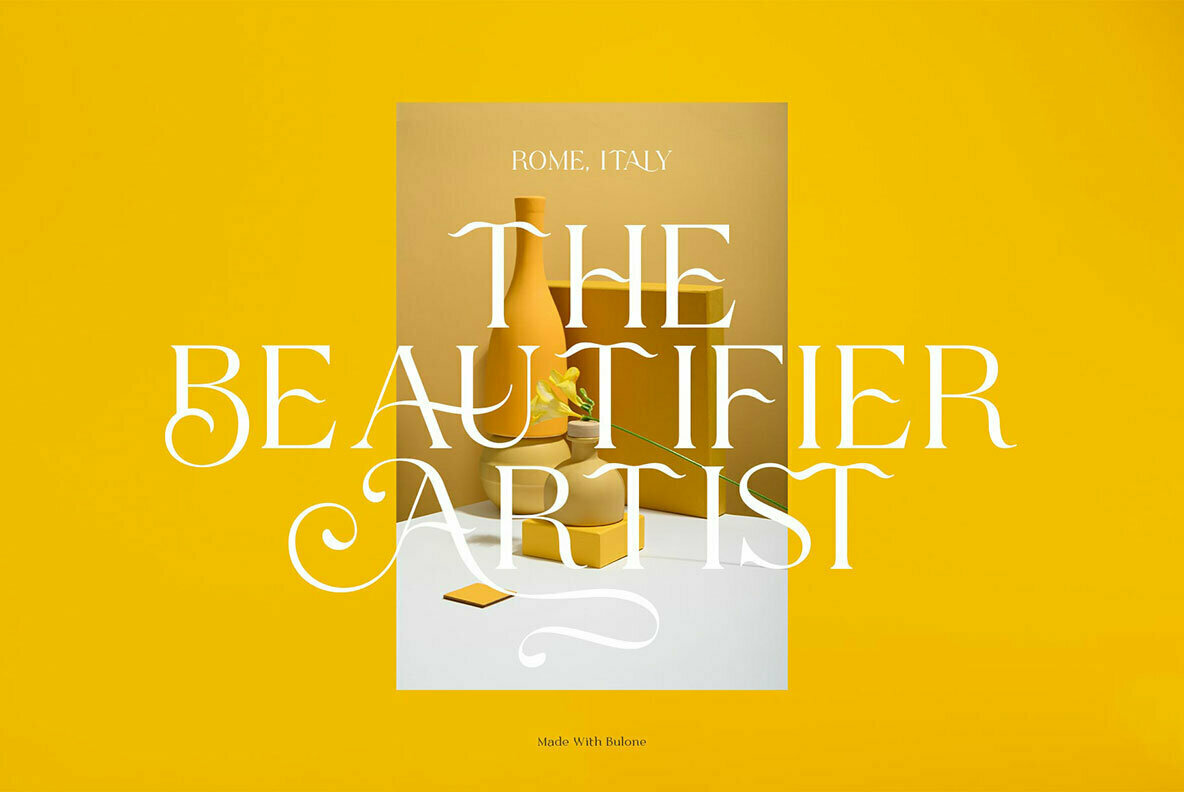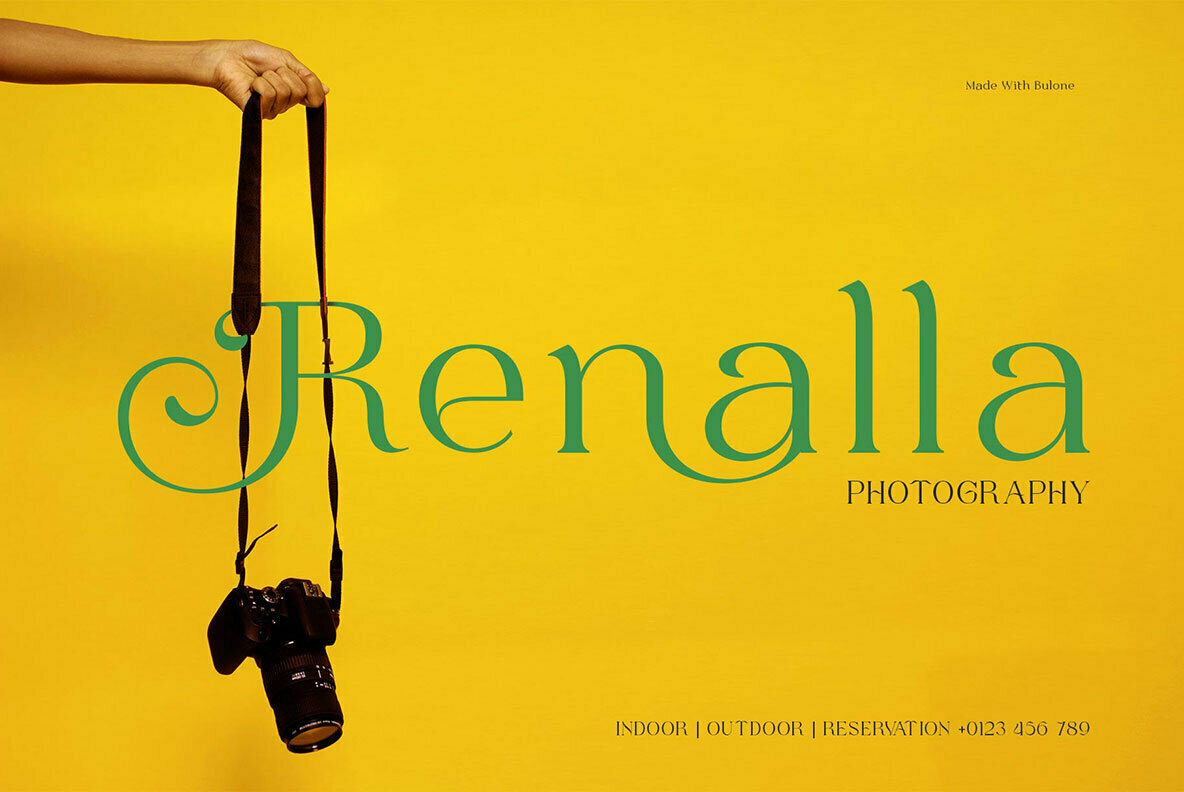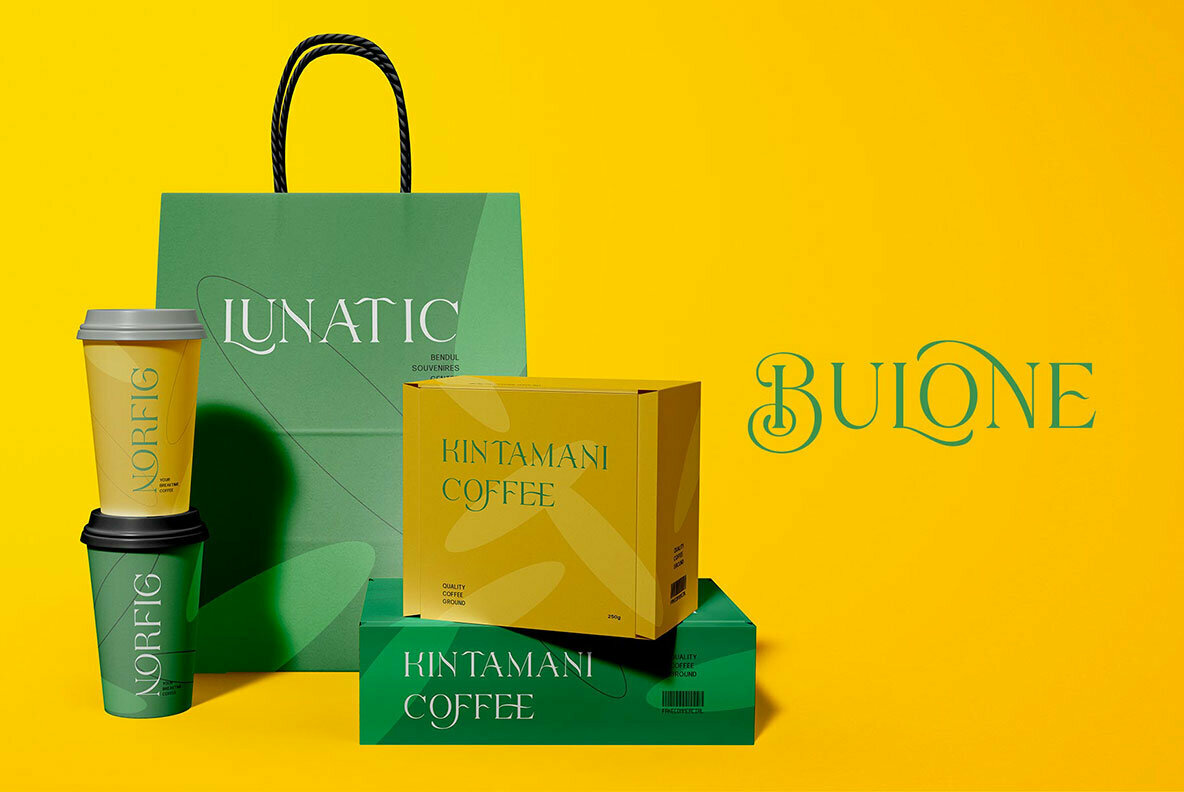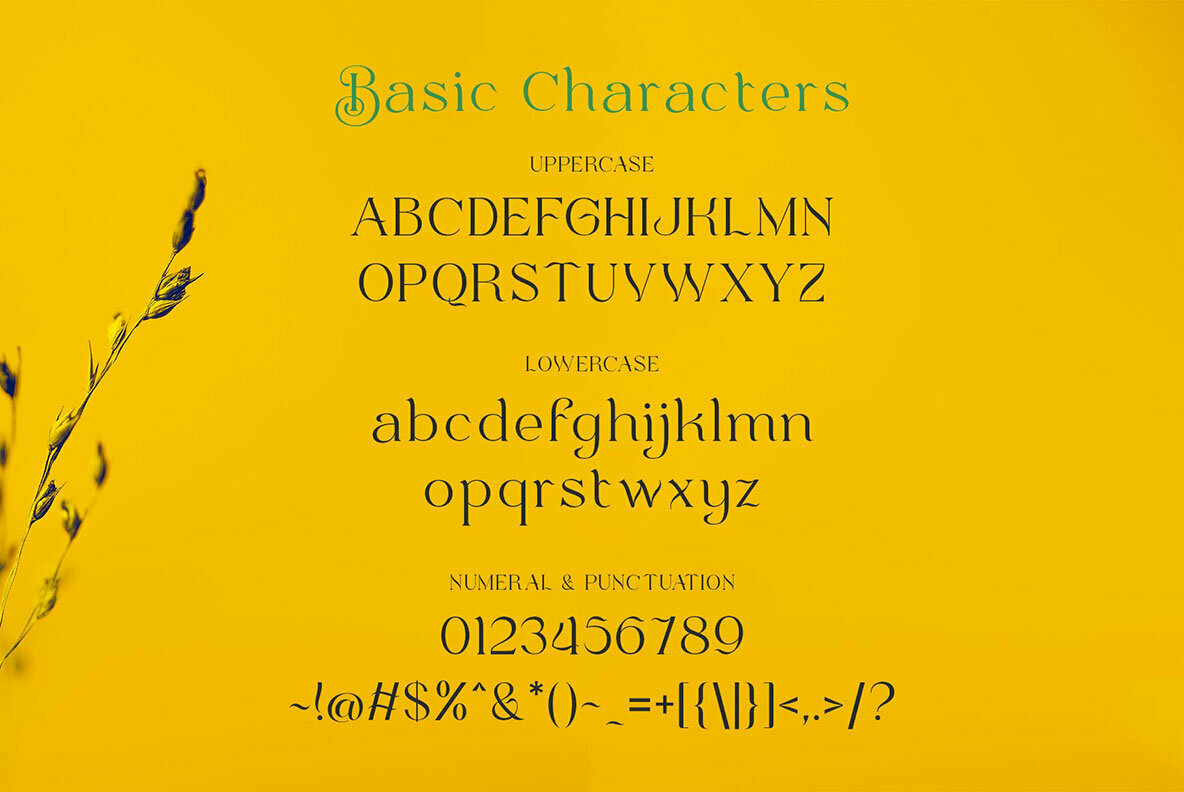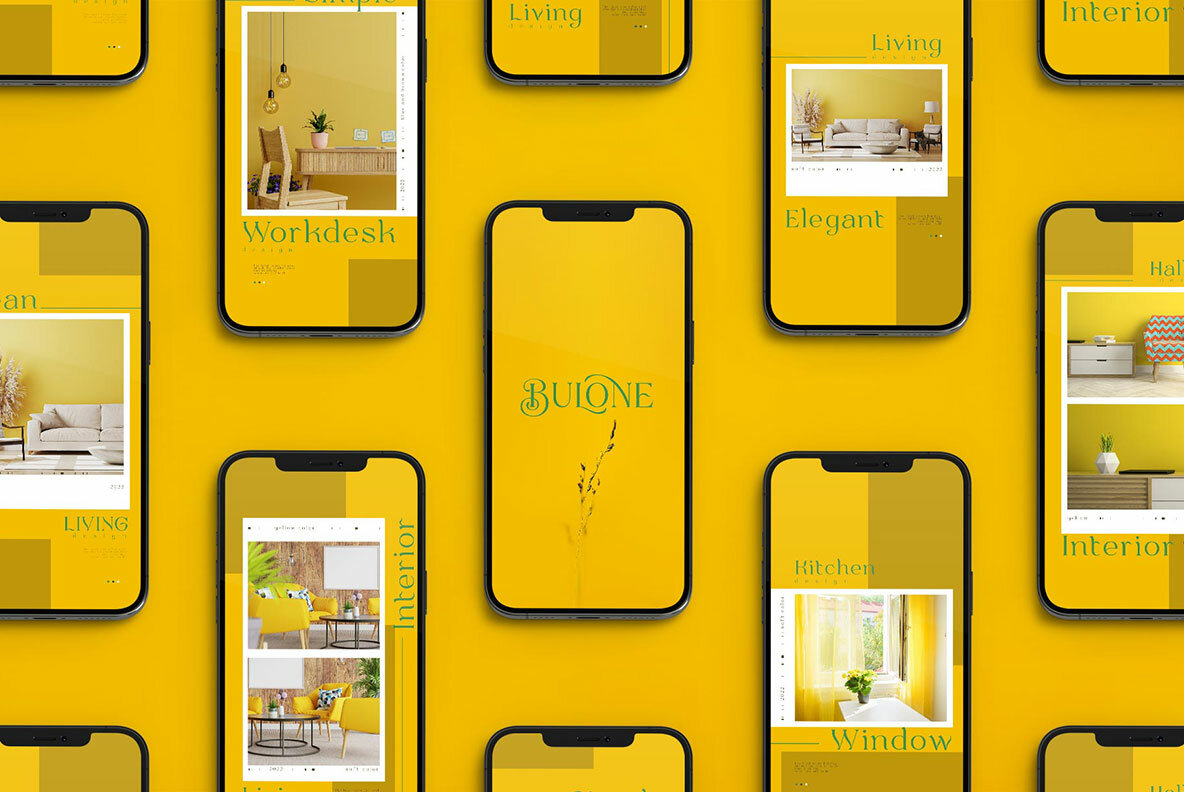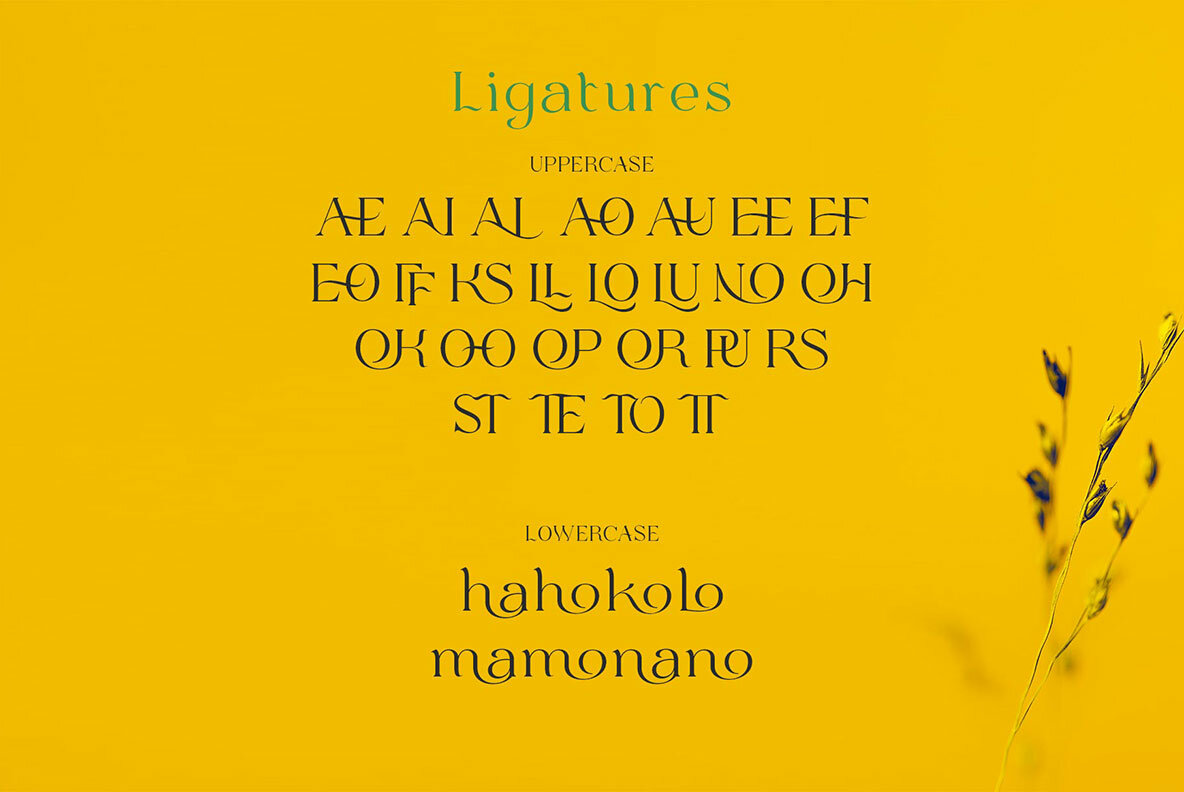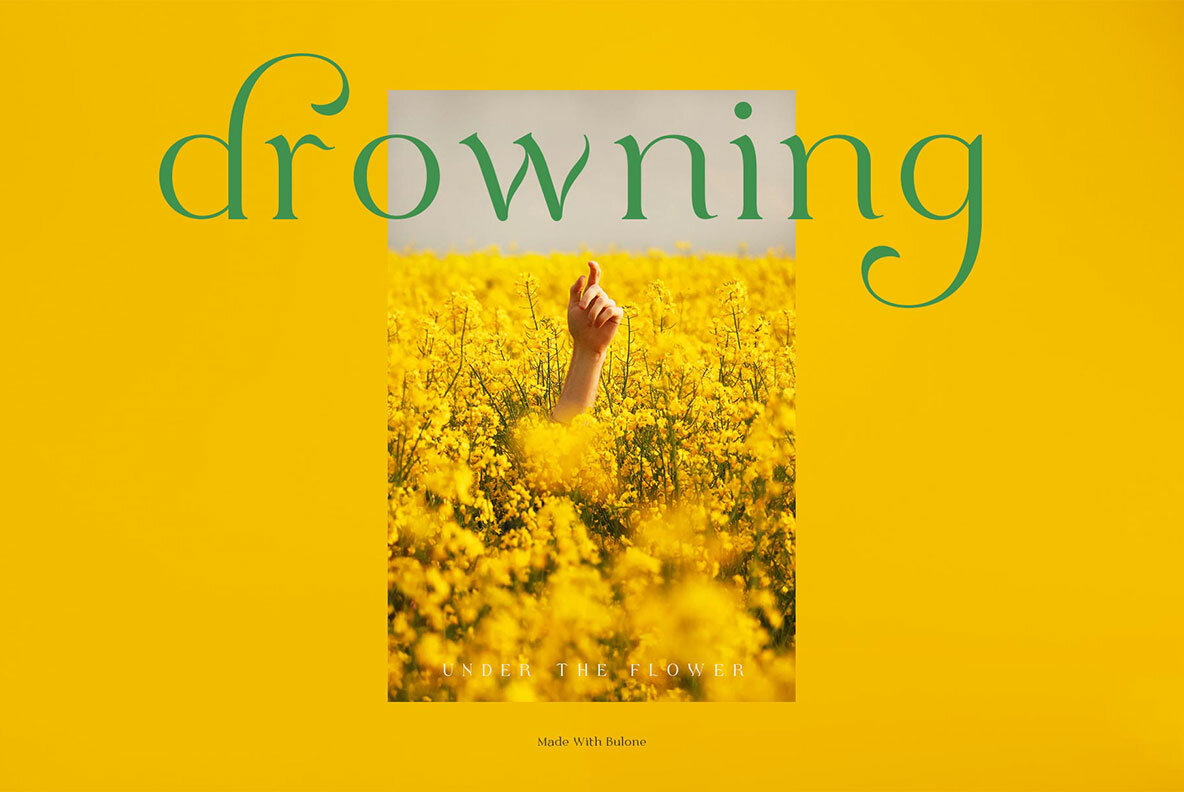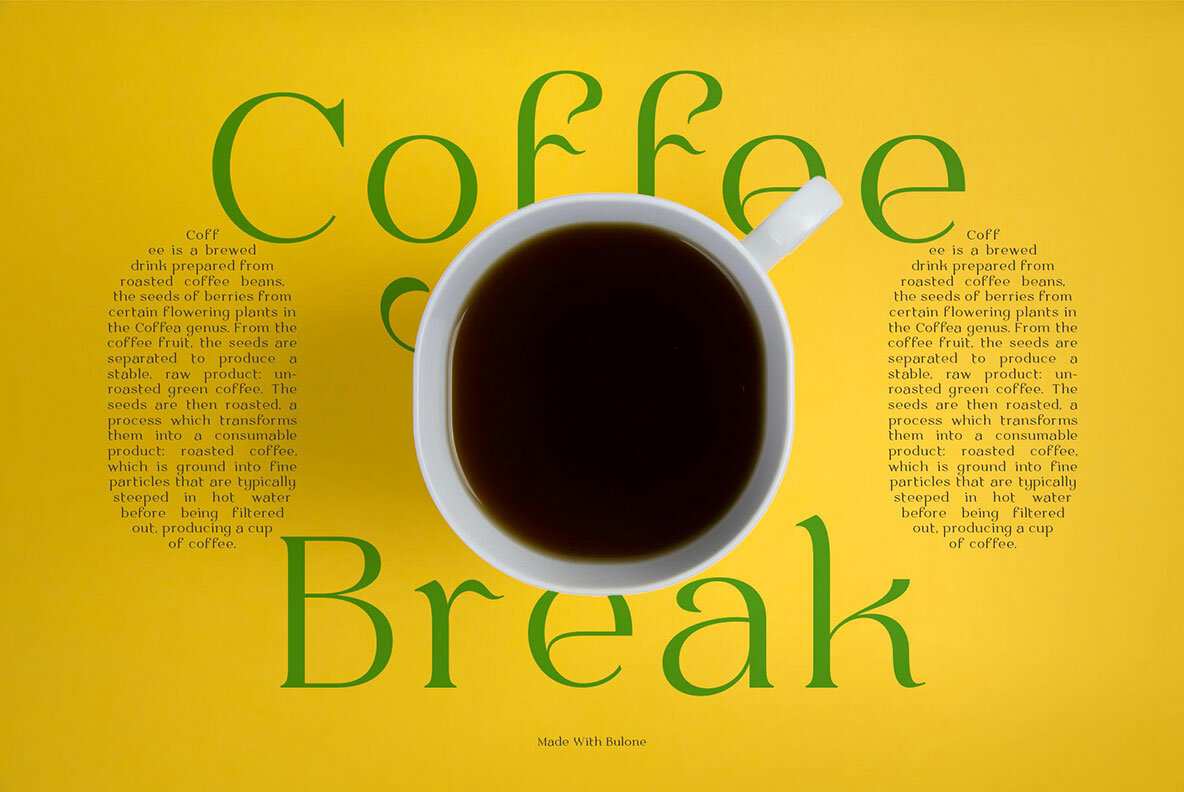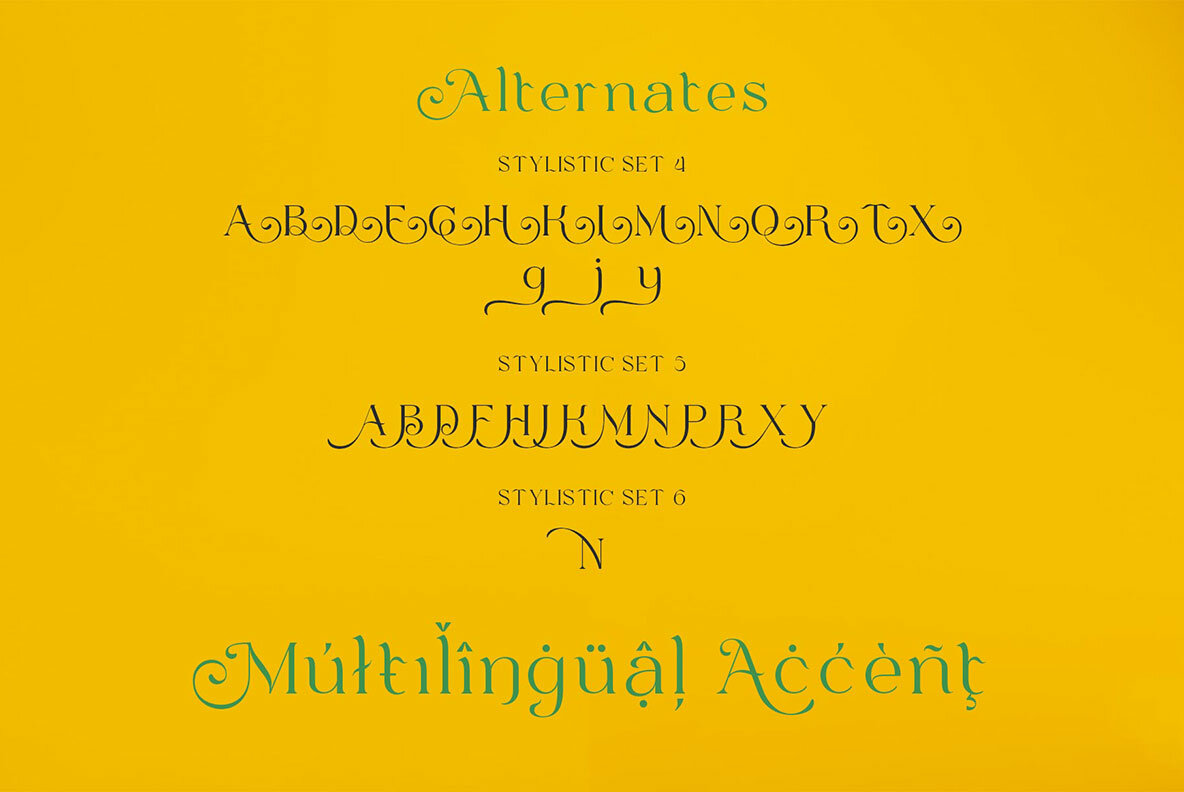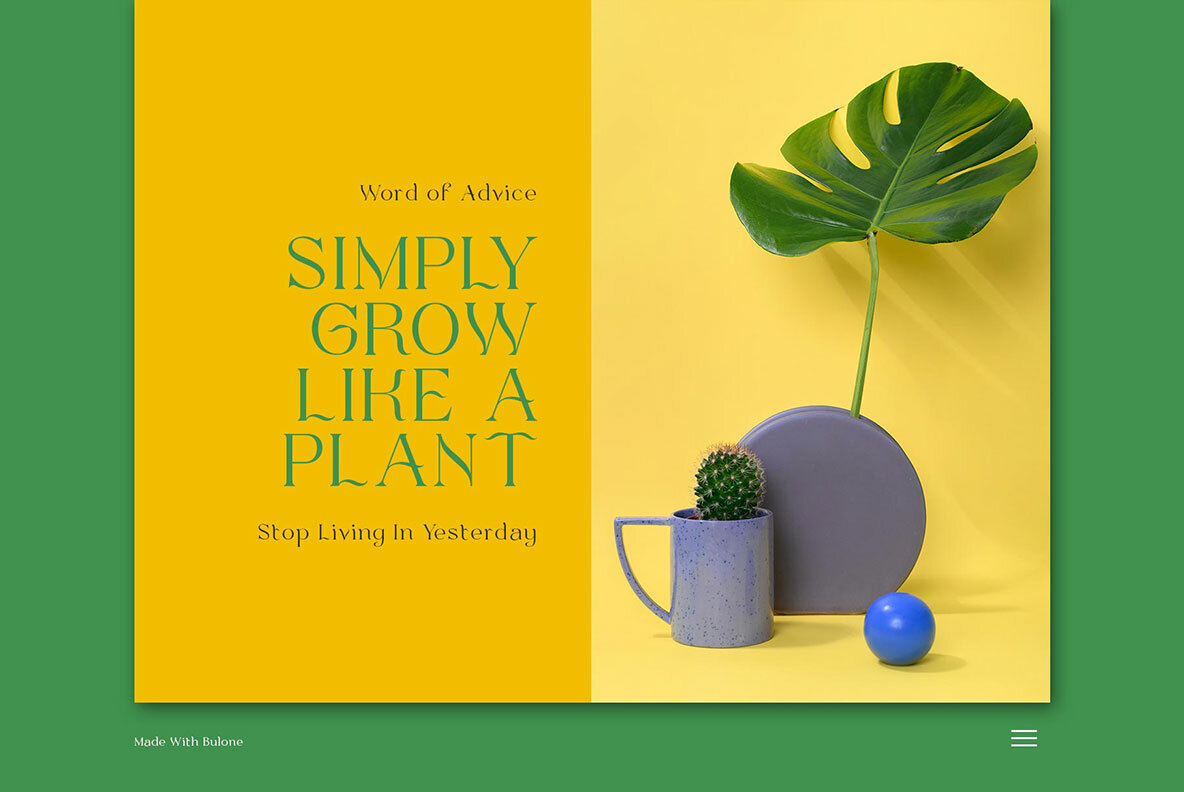
Bulone Font
Bulone Regular
With its elegant serif style, the Bulone typeface is perfect for any design that needs an extra touch of class. The smooth curves and bulbous shapes will make your work stand out among others in this category! Bulone contains 613 glyphs with many unique and interesting alternative options.